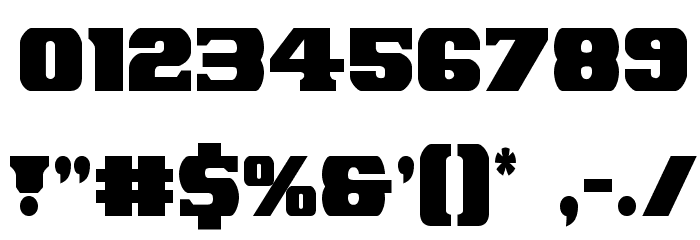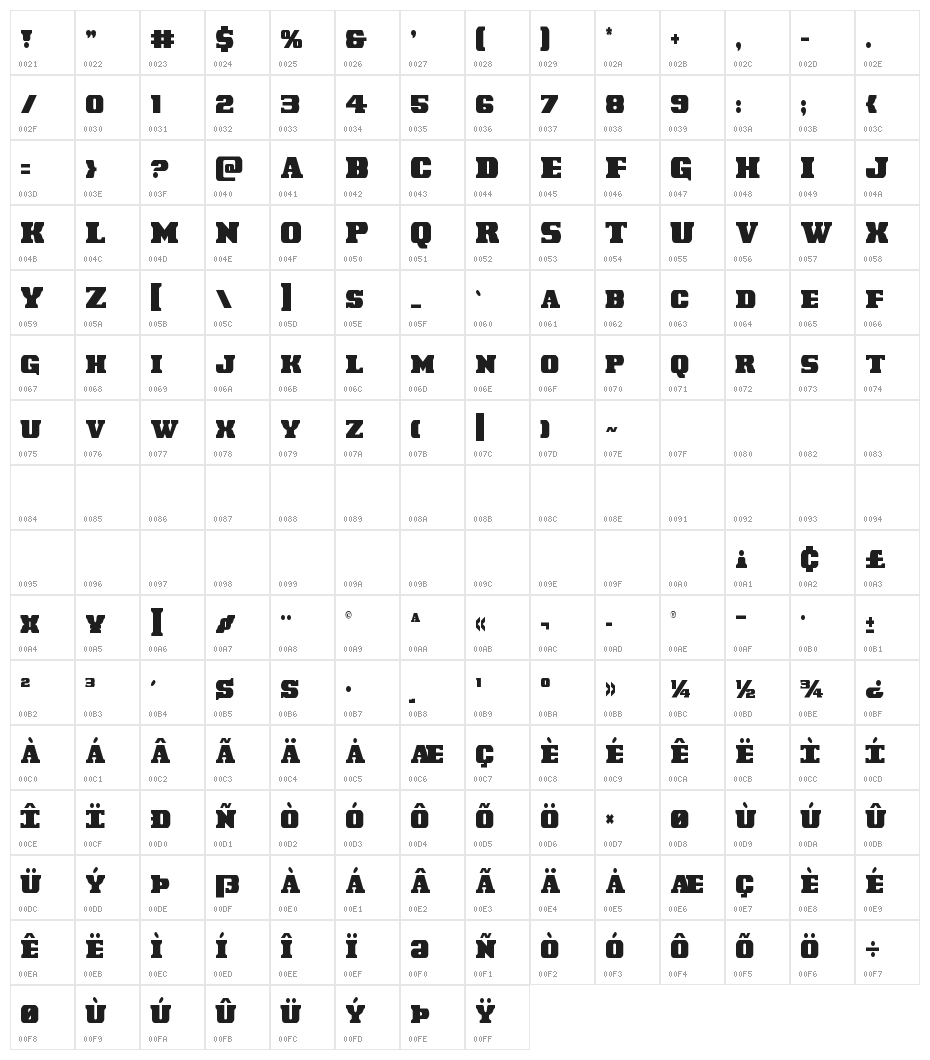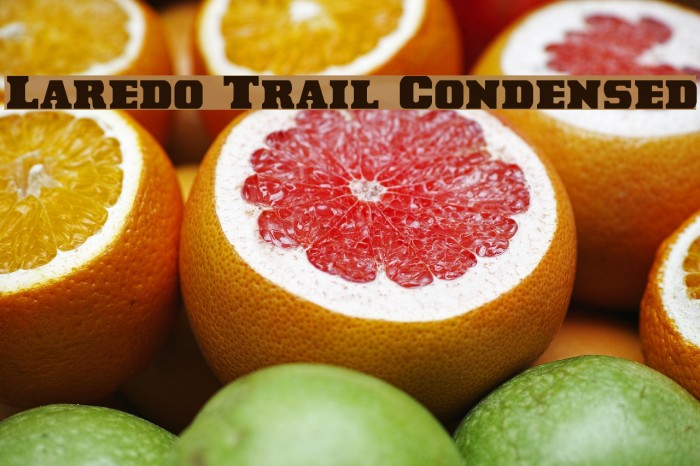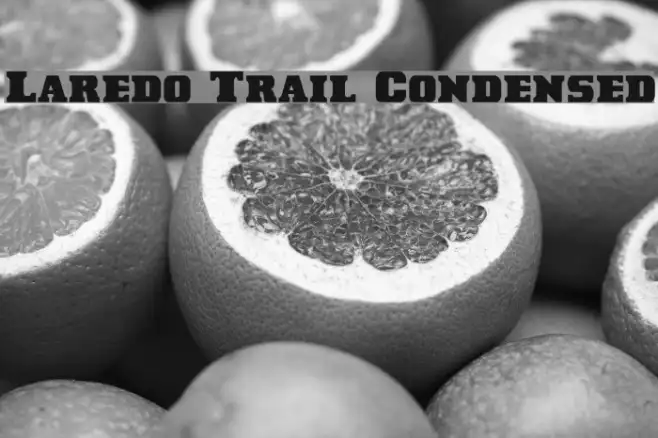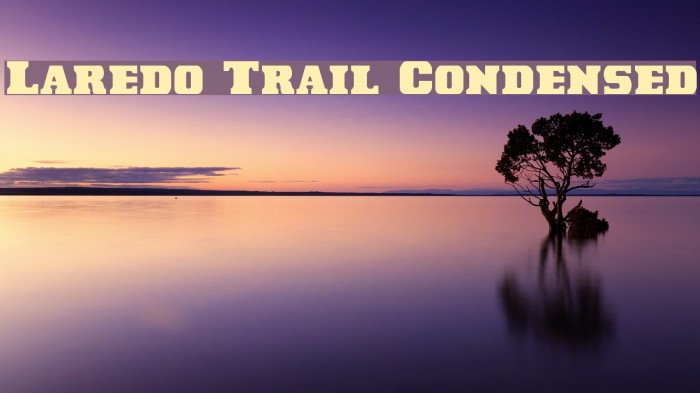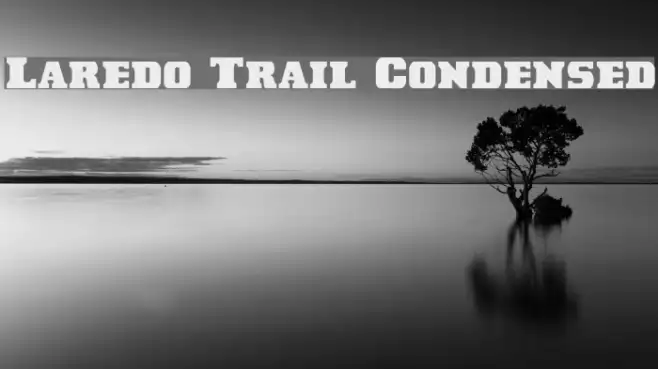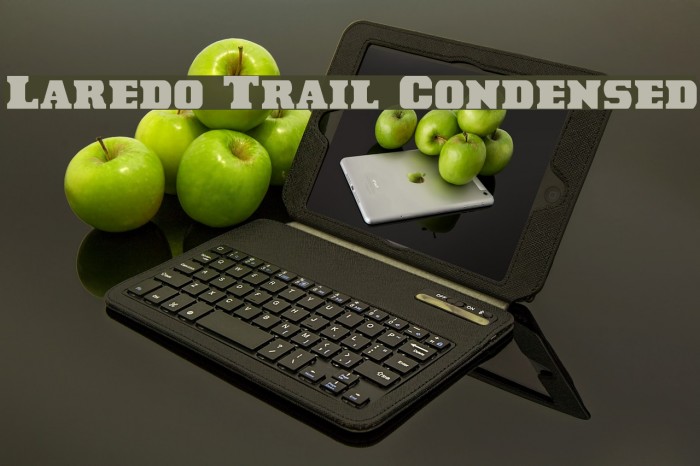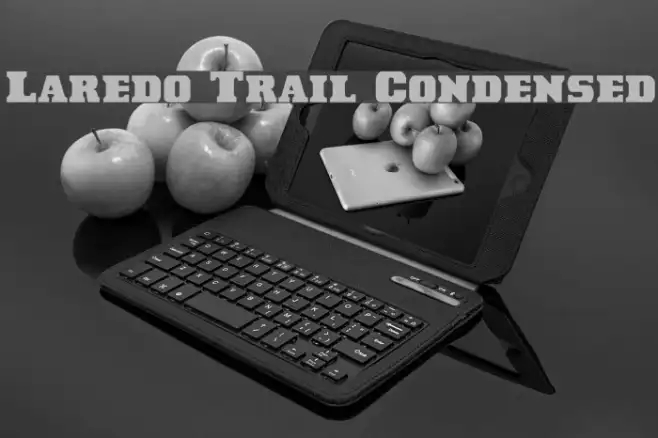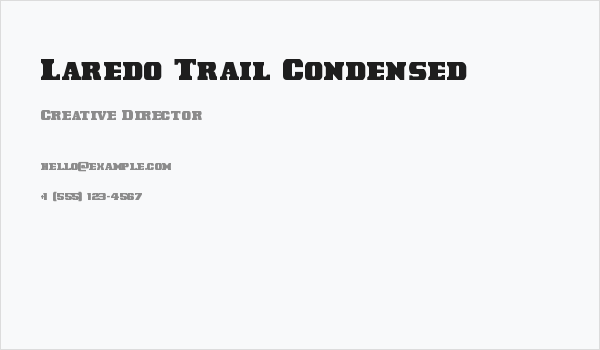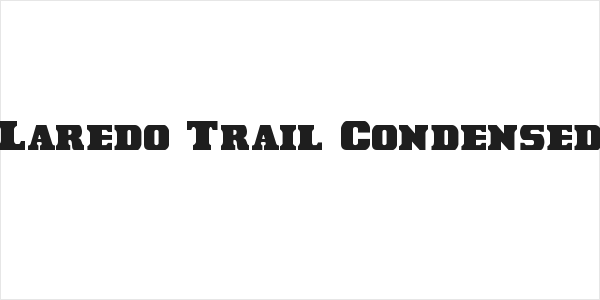
Laredo Trail Condensed Font
Laredo Trail Condensed Description
This font features a bold and robust design with a strong presence, characterized by thick, block-like letters that convey a sense of strength and authority. The condensed nature of the typeface allows for efficient use of space while maintaining readability. Each character is crafted with sharp, angular edges and minimal curves, giving it a modern and industrial feel. The uppercase and lowercase letters are consistent in style, providing a cohesive look across different text applications. The numerals and special characters are equally bold, ensuring they stand out in any context.
| Proposed Projects | Ideal for branding, posters, headlines, and any project requiring a bold, impactful typeface. |